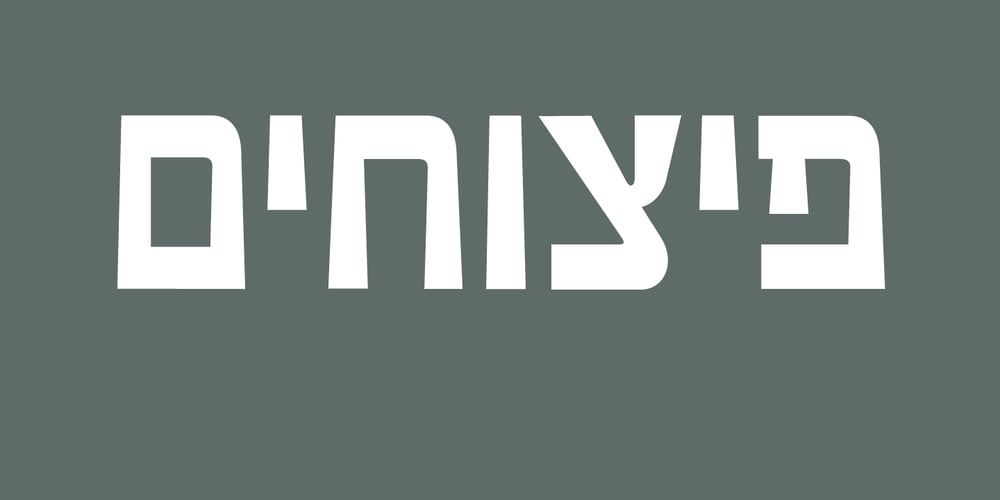
Matmon MF
Matmon MF font
Matmon MF Font Family was designed by Eliyahu Fried and published by Masterfont. Matmon MF contains 1 styles and family package options. This high contrast font is suitable for signage and logos. So simple yet so clear.